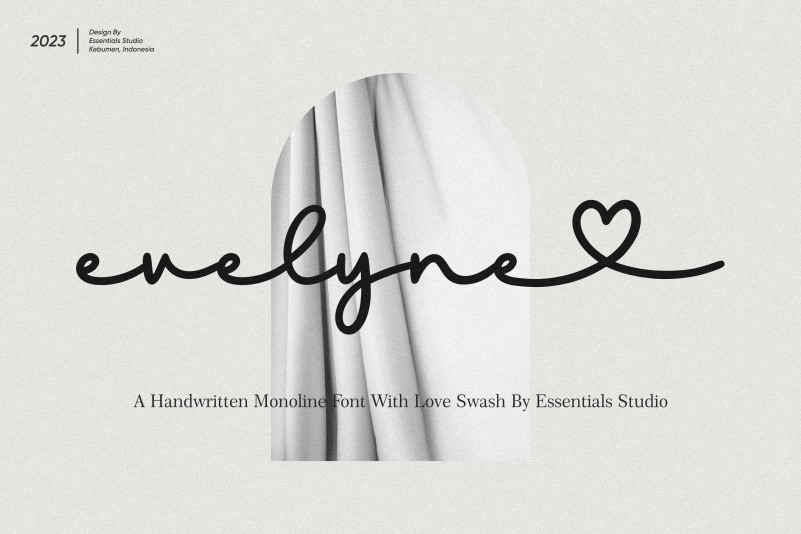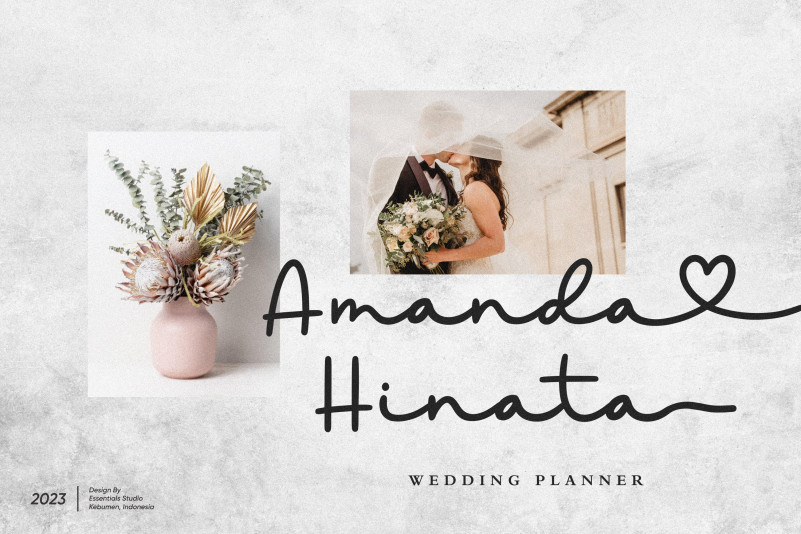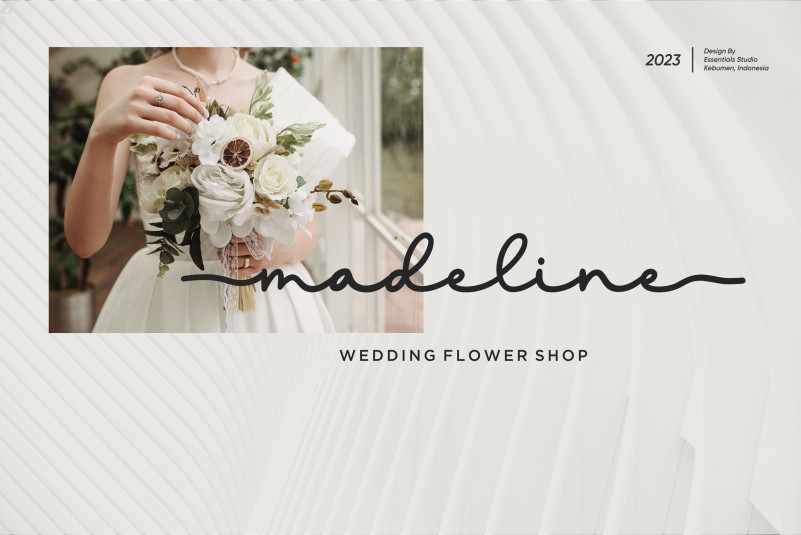
Evelyne Font
Evelyne Font Is a Handwritten Monoline Font with love swash. Evelyne is perfect for product packaging, branding project, megazine, social media, wedding, or just used to express words above the background.